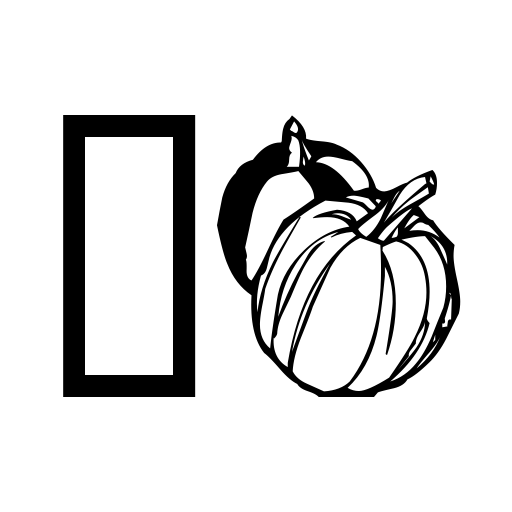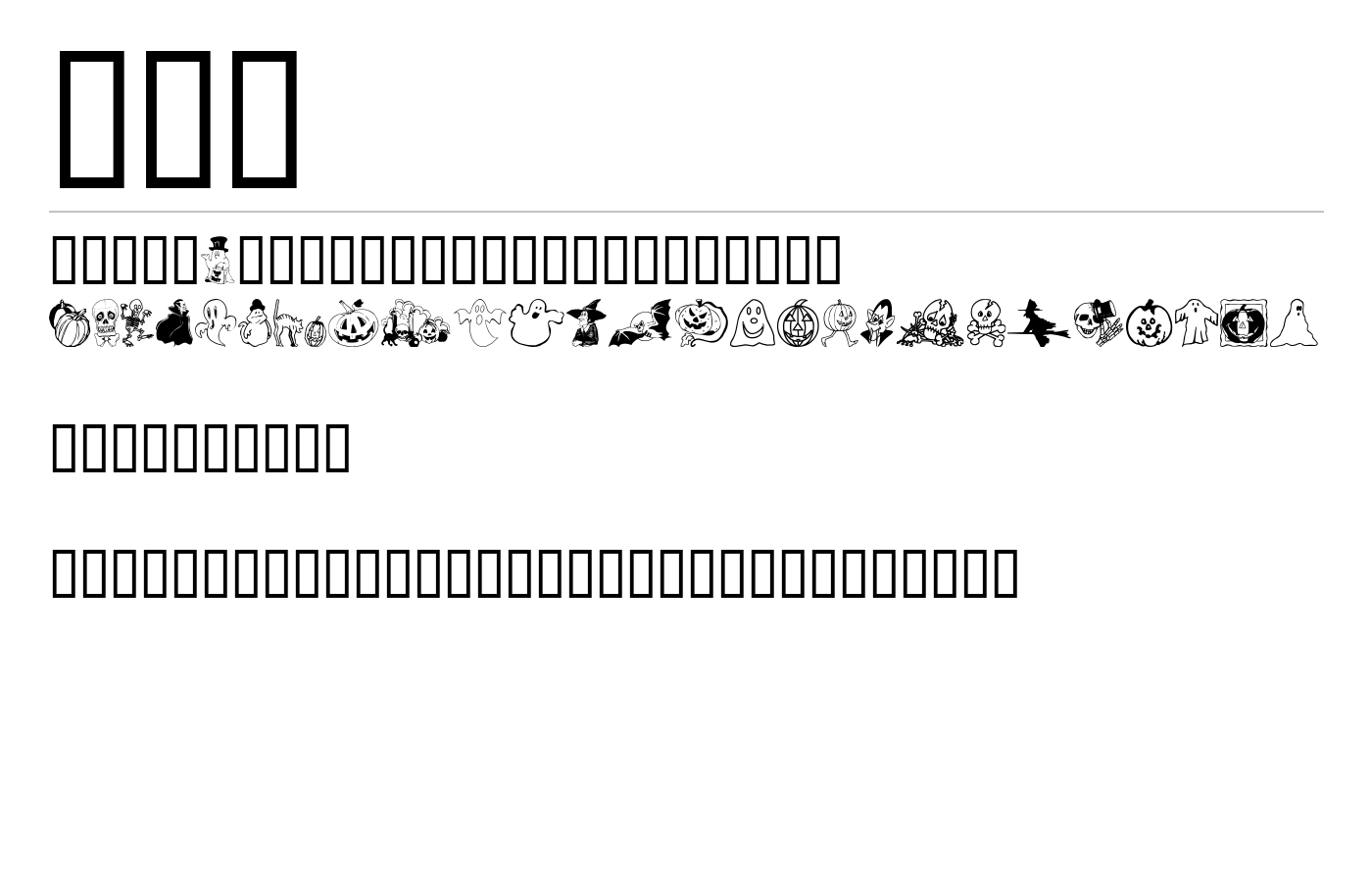
BOO Font is a playful and festive dingbat font filled with whimsical Halloween-themed icons such as pumpkins, ghosts, witches, and skulls. It features bold, simple shapes that capture a fun, spooky spirit perfect for seasonal designs, party invitations, or themed decorations. This font works best for adding a festive touch to Halloween projects, giving them a lighthearted and charming character.
BOO Font
About BOO Font